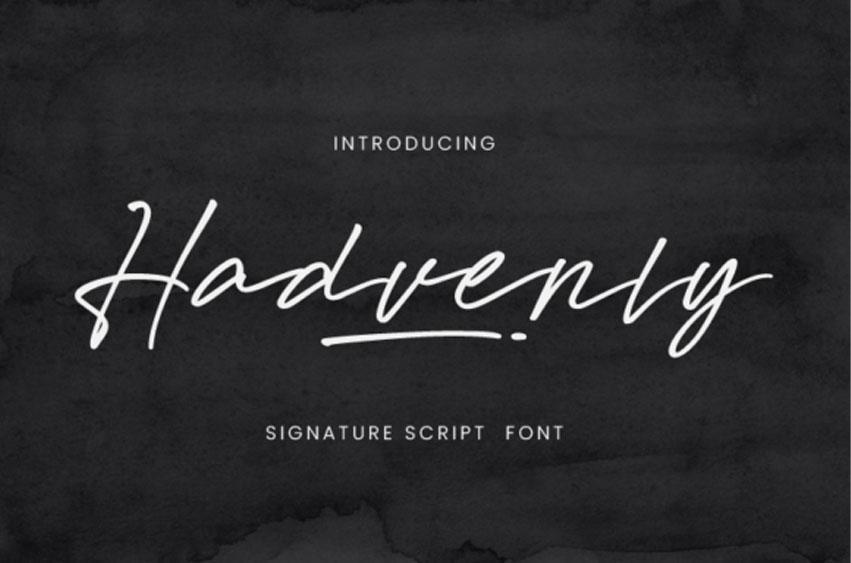
Hadvenly Font is a signature script-style font. Featuring the perfect amount of trendiness, this font will make your designs come to life.
Its authentic look will add a personal and realistic feel to your designs. This font is PUA encoded, which means you can access all of the glyphs and swashes with ease!